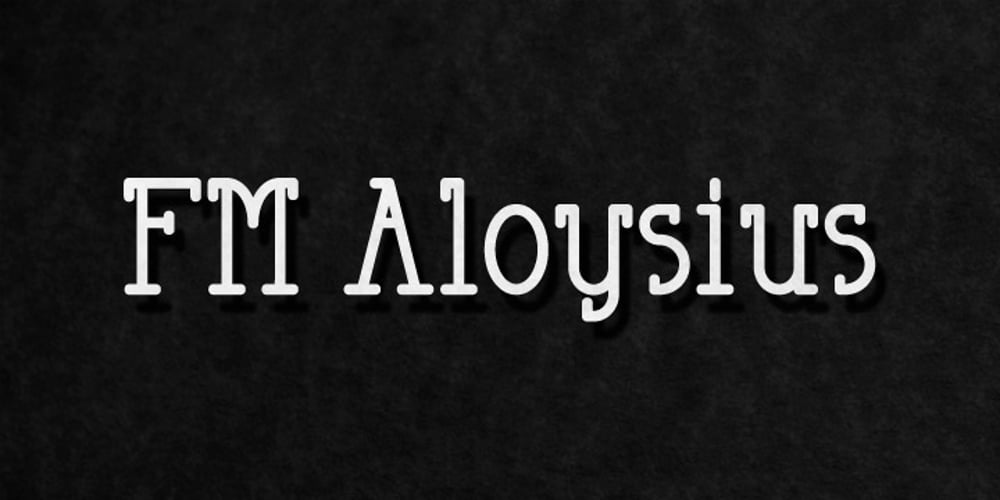
FM Aloysius
FM Aloysius font
FM Aloysius Font Family was designed by Elwin Berlips and published by FontMeister. FM Aloysius contains 1 styles and family package options. Art Nouveau typeface ‘Aloysius’ draws inspiration from Wiener Secession Movement. You can use this font to create posters, greeting cards, scrapbooks, CD labels, T-shirts, coffee mugs, digital videos websites and banners.